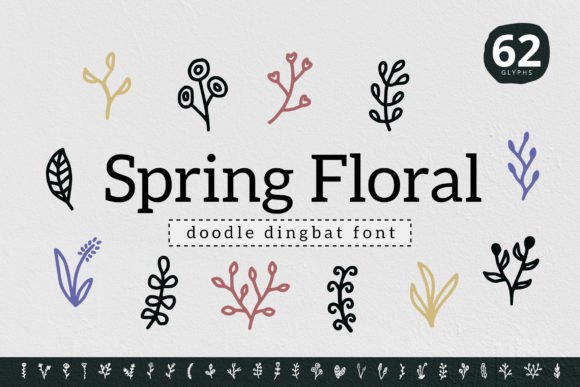
Unleash your creativity with Spring Floral – a playful and versatile dingbats font overflowing with charm. Designed by the talented YandiDesigns, this font family is a treasure trove of whimsical and enchanting symbols, mathematical characters, and decorative elements that will add a touch of uniqueness to any project.
Embark on a typographic adventure, where words dance in perfect harmony with enchanting symbols. Use Spring Floral to create captivating posters that speak volumes, stickers that make you smile, and apparel graphics that tell a story. Let your imagination soar as you design eye-catching logos, vibrant social media posts, and even personalized greeting cards that are sure to leave a lasting impression.
With Spring Floral, the possibilities are endless. Add a touch of whimsy to your personal projects or captivate your audience with captivating designs for your professional endeavors. Whether you're an artist, designer, or simply a lover of beautiful typography, Spring Floral is the perfect addition to your digital toolbox.
So, dive into the world of Spring Floral today and let your creativity flourish. Discover the joy of expressing yourself through intricate, meaningful symbols that add depth and dimension to your designs. Embrace the beauty of Spring Floral and let your imagination run wild!